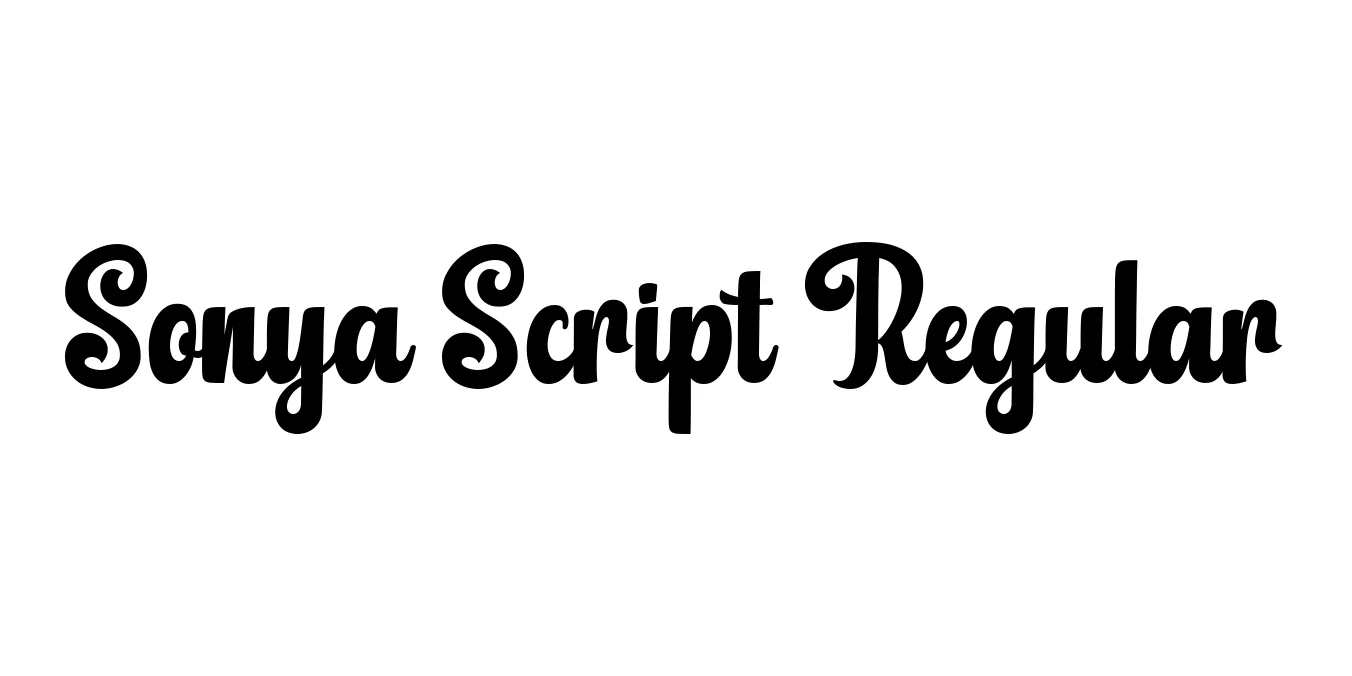
Sonya Script Regular
Designed by Maulana Creative
Sonya Script Regular is a beautifully crafted modern calligraphy font that exudes elegance and sophistication. Characterized by its fluid, rhythmic strokes and natural handwriting appearance, this typeface was designed to bridge the gap between classic penmanship and contemporary digital design. Its delicate swashes and consistent flow make it an ideal choice for projects that require a personal, artisanal touch.
This font is particularly popular in the wedding and event industry, frequently appearing on luxury invitations, place cards, and signage. Beyond events, it serves as a powerful tool for lifestyle branding, social media graphics, and editorial layouts. Its versatility allows it to remain legible while maintaining a high level of decorative flair, ensuring that any message conveyed feels intimate and thoughtfully presented.
Sonya Script Regular Best Uses
Perfect for creating romantic invitations and elegant place cards.
Ideal for luxury fashion or lifestyle logos seeking a personal touch.
Excellent for quote posts and sophisticated Instagram stories.
Adds an authentic, handwritten feel to personalized messages.